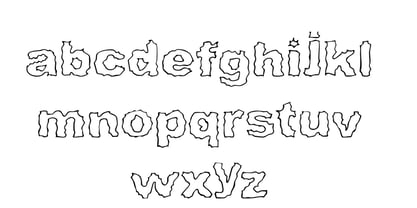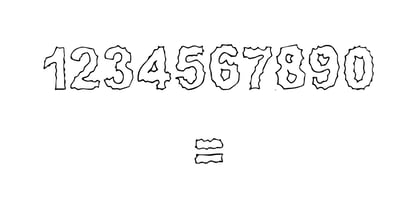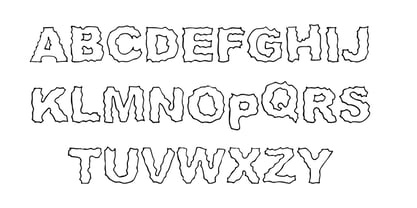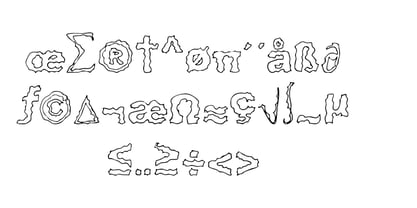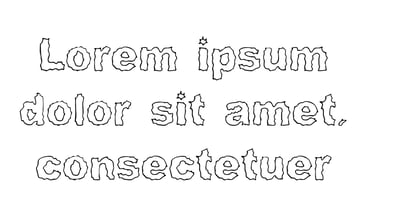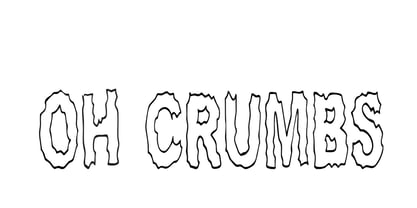
OHcrumbs
by Jointype
The OHcrumbs Font Family was designed by Jeremy Gill-Praba and published by Jointype. OHcrumbs contains 1 styles. More about this family
The Crumbly font is a delightful, hand-crafted typeface that captures the whimsical essence of biscuit crumbs scattered playfully. Each character appears as though it has been gently chipped or crumbled, featuring soft, uneven edges that lend a charming, slightly jagged quality. The textured, speckled look mimics the appearance of tiny biscuit bits adhering to the letters. With rounded, organic strokes and random imperfections, this font exudes a warm, inviting vibe—making it an excellent choice for designs centered around food, comfort, or nostalgic childhood snacking moments. The varying density of the characters, with some areas appearing more 'crumbed' than others, adds depth and dimension to the typography. Overall, this playful yet rustic font is perfect for projects aiming to convey an informal, friendly, and appetizing aesthetic.